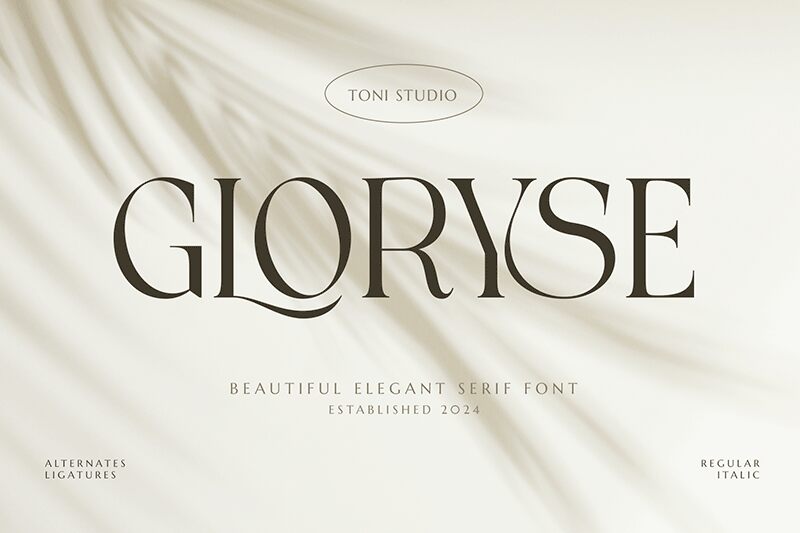
Gloryse Italic font from ToniStudio’s Gloryse family is a stunning serif typeface that attracts with its wide, graceful curves. Due to italics, the style becomes more dynamic and elegant which makes it ideal for adding gracefulness and warmth to any work. The delicate serifs have a timelessness effect on them, thus enhancing visibility yet remaining in an aura of traditional refinement.
When used in branding, editorial design or invitations with its unique style, Gloryse Italic excels. Download this fine font today, and give your designs a bit of sophistication that is hard to notice.